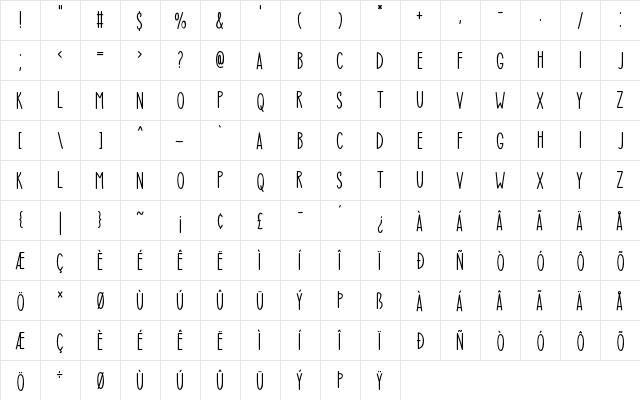
Sweet Summer Regular Font Preview
Sweet Summer Regular
Design Context for Sweet Summer Typeface
Sweet Summer takes a measured approach to typography — its balanced proportions and neutral character make it a reliable workhorse for both digital and print work.